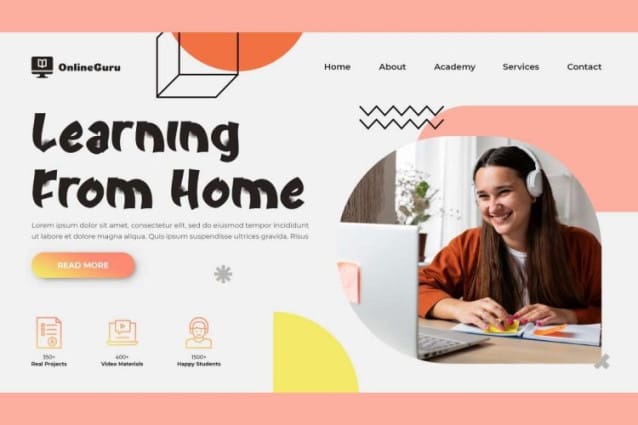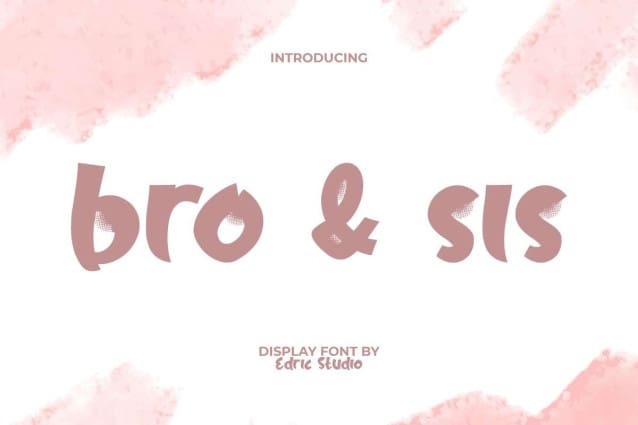
Bro And Sis Font
Bro And Sis Font is a unique Japanese brush display font with element of the letters. The impression that is highlighted is that the letters are sharp and solid with inner corners that create a blurry effect. It feels fantastic for your designs, such as apps, billboard, blogs, cover, flyer, header, logos, packaging design, poster, price label, screen print, signage, stationery, sticker, title, website, and much more.
Bro And Sis Font comes with a full set of Uppercase and Lowercase letters, Number, Punctuation and Symbol. It will play an important role in your special project which can certainly be adapted to various industries such as ads, content creator, craft, fashion, graphic design, merchandise, parties or festivals, printing, publishing, web designer, writer, and whatever else looks perfect to go with this font!